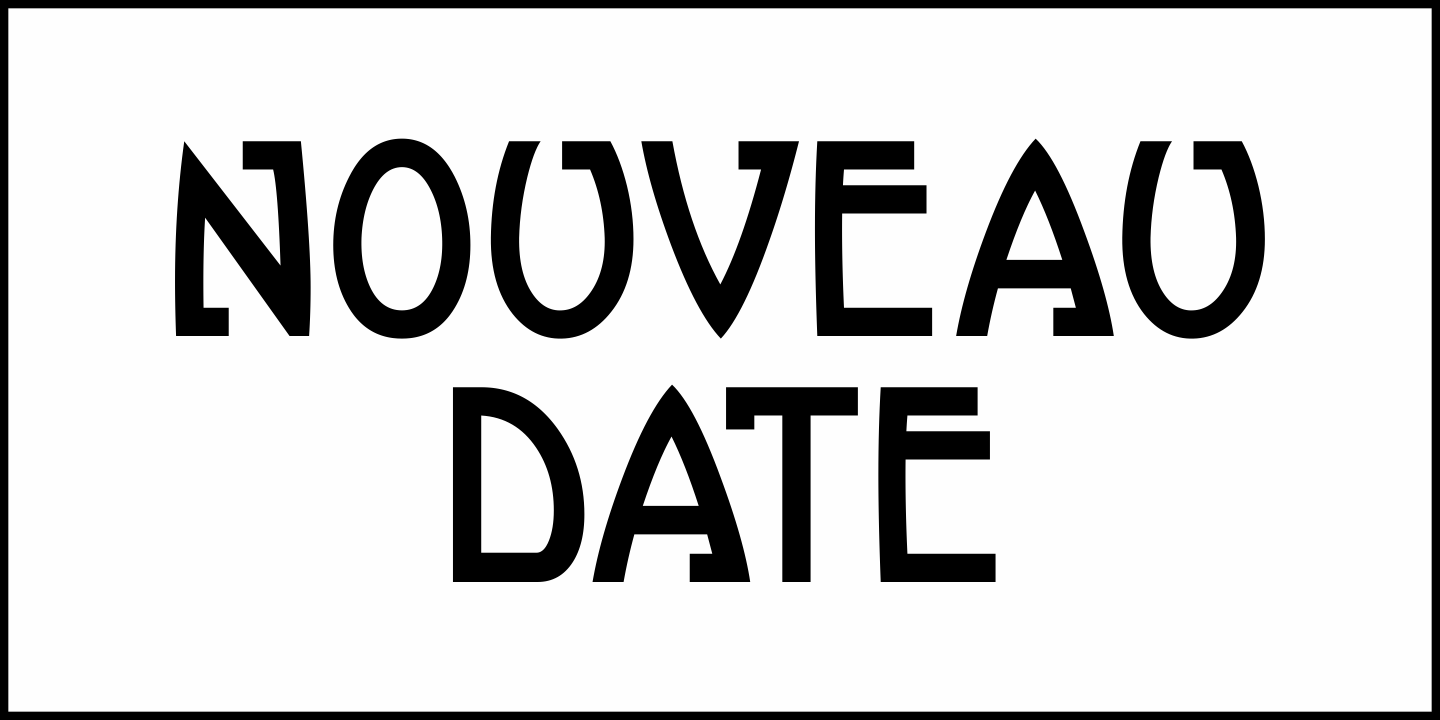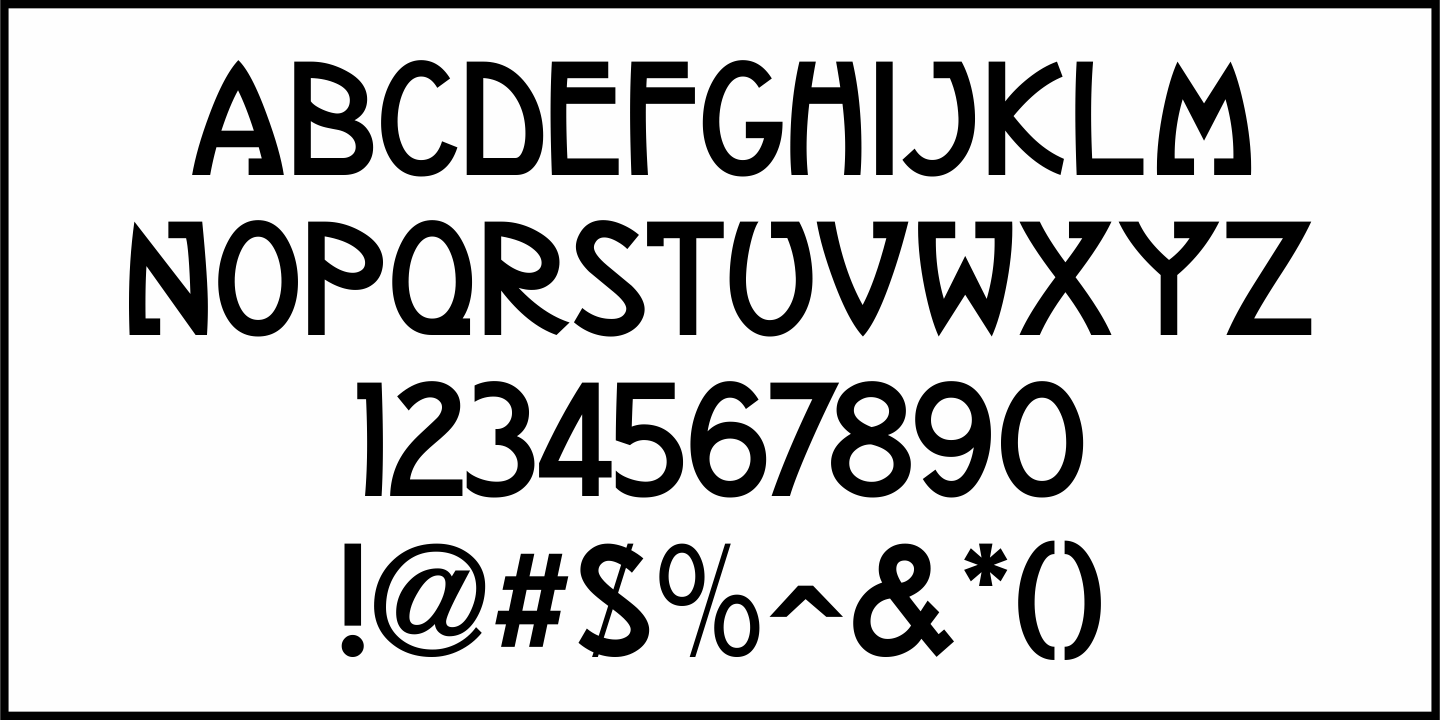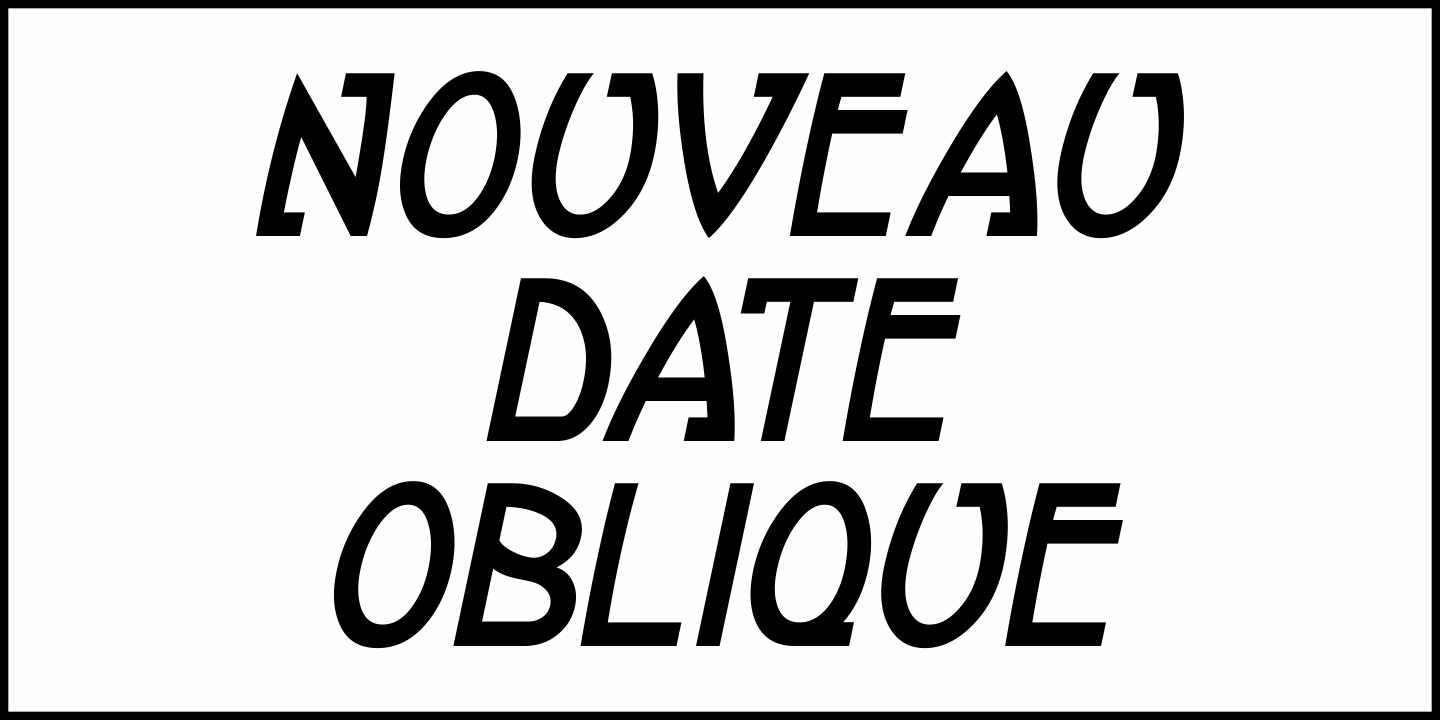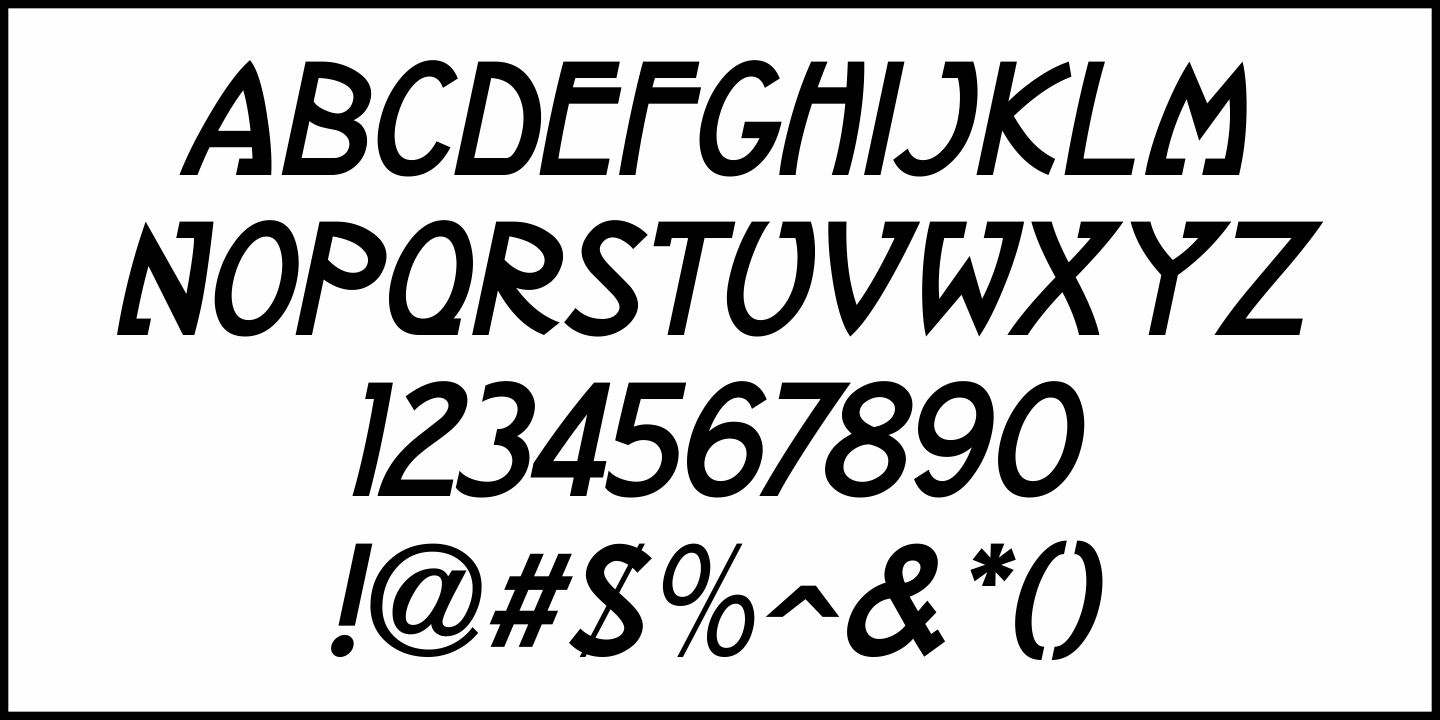
Nouveau Date
The hand lettered title on the cover of the 1914 tune 'I Want you to Meet My Mother” served as the inspiration for Nouveau Date JNL, which is available in both regular and oblique versions.